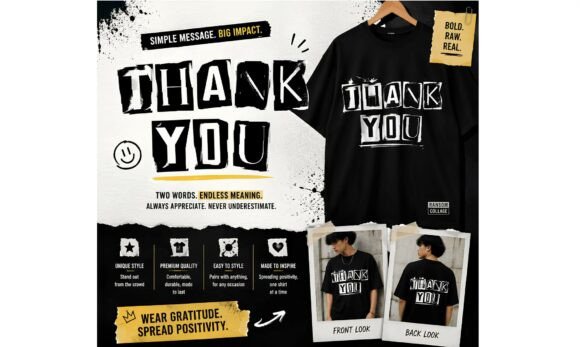
Introduction to Ransom Collage Font Font
Fonts play a crucial role in design, and the Ransom Collage Font font is a typeface that brings both character and versatility to any project. Whether you’re working on a branding project, a website, or a print design, the Ransom Collage Font font offers a unique style that can elevate your work.
Cut through the digital noise and make an unapologetically bold statement with Ransom Collage, a hyper-realistic, gritty display asset pack designed for high-impact visual storytelling.
Striking the perfect balance between edgy punk-rock rebellion and retro analog craftsmanship, this collection captures the chaotic aesthetic of letters clipped directly from vintage magazines and worn newspapers Every character is framed within a unique, hand-torn black paper block, complete with realistic paper fibers, jagged edge trims, and ink textures.
The Ransom Collage Font font is more than just a typeface – it’s a design tool that helps you communicate your message with style and clarity. Its unique character set and versatile design make it suitable for a wide range of applications, from elegant invitations to bold headlines.
With its carefully crafted letterforms and balanced proportions, the Ransom Collage Font font ensures readability and visual appeal across all mediums.
What makes Ransom Collage Font font special?
The Ransom Collage Font font stands out with its unique design, exceptional readability, and versatility across various design applications.